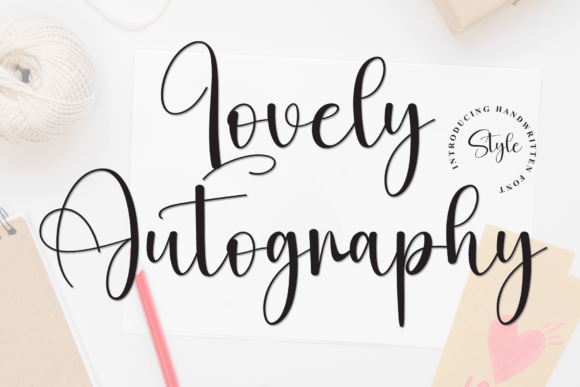
Lovely Autography
Whether you are creating POD (Print on Demand) products, wedding invitations, or social media graphics, Lovely Autography is an ideal fit.